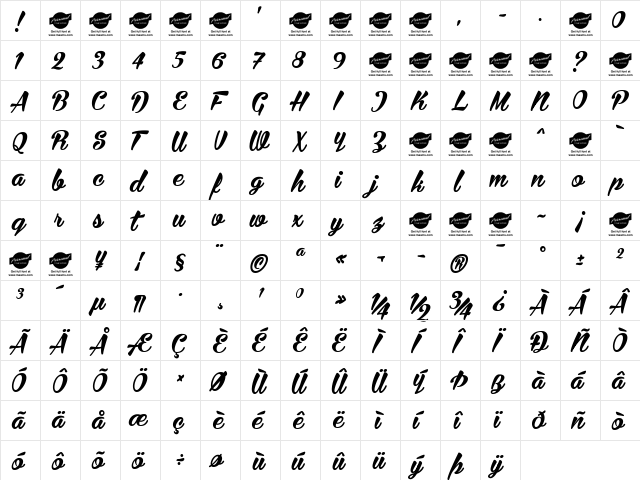
Bira PERSONAL USE ONLY Regular
| Foundry | M害 Greb䣫 |
| Designer | M害 Greb䣫 |
Design Context for Bira PERSONAL USE ONLY Typeface
Bira PERSONAL USE ONLY is a composed and adaptable typeface that performs quietly and consistently across a wide range of design contexts.